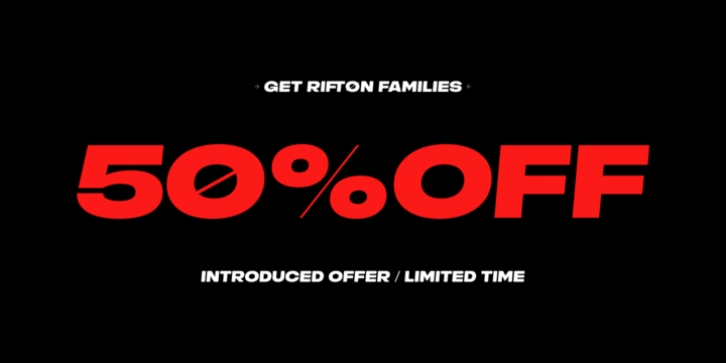
Rifton is a black display typeface designed for use in large sizes. Available with 5 styles, Rifton has the same uppercase alphabet, numbers, punctuation, symbols, and miscellaneous characters. also includes full Open Type features like Ligatures, Symbols, Alternates, and super wide alternate glyph shapes.
Rifton is ideal for making a bold statement in headlines, titles, or Logo Design.